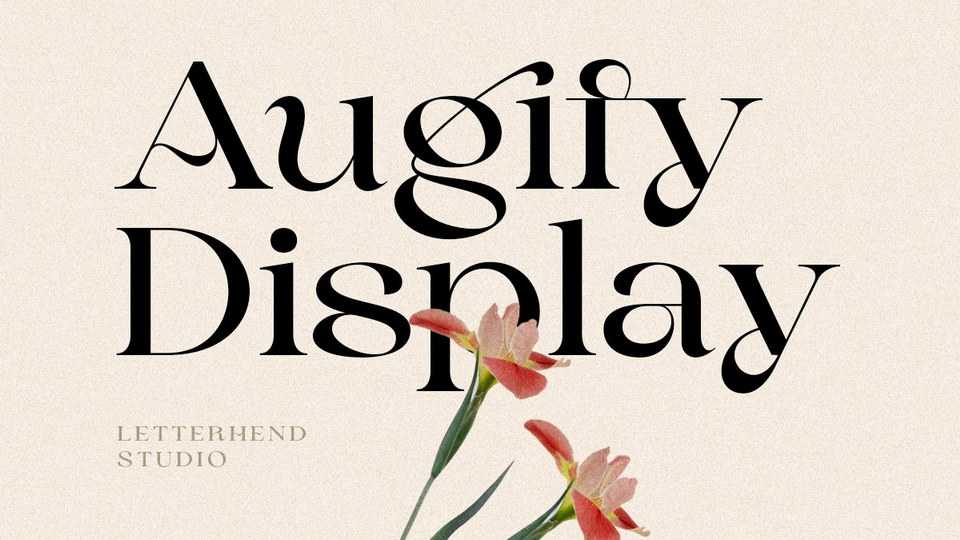
Download Augify Display font, a sophisticated serif typeface with a unique letterform. Augify has many beautiful ligatures which you can play around to match your project, whether for a standout headline, or for a tagline, you name it.